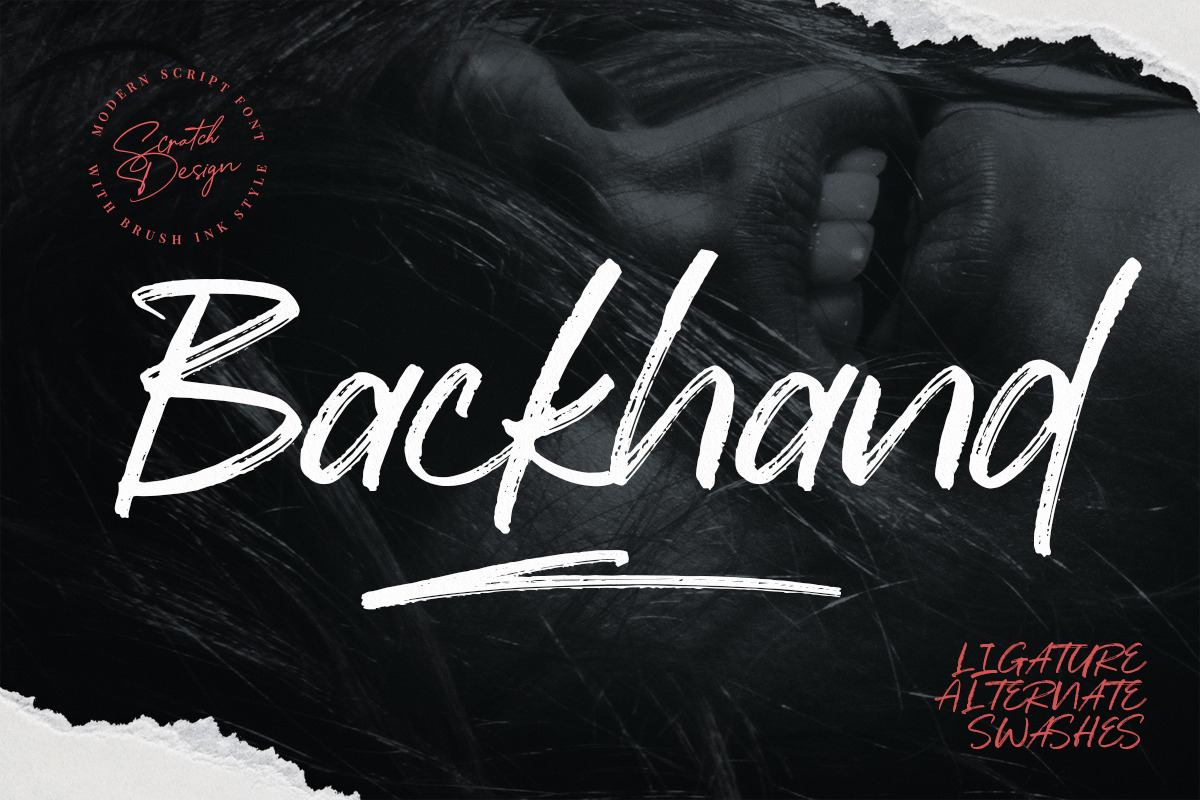
Backhand - Script Font Free Download is a dynamic and stylish handwritten typeface that brings personality and flair to your designs. Featuring fluid strokes and a natural, flowing style, this script font is perfect for creating logos, invitations, greeting cards, social media content, and more. Its expressive and casual design adds a unique touch to any project, making it ideal for brands, events, and personal designs that require a handwritten, artistic feel. Whether you're designing for a creative campaign, a casual brand, or crafting a personalized message, Backhand - Script Font Free Download allows you to experiment with its unique style in personal projects before purchasing a commercial license. Add energy and authenticity to your designs with this beautifully crafted script font.